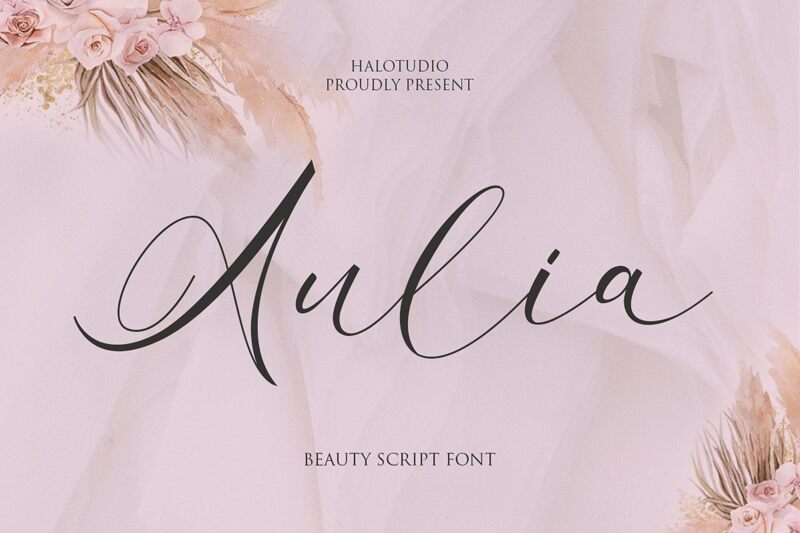
Aulia
Aulia, the latest creation by Hallotudio, is a stunning calligraphy font that exudes elegance and sophistication. The semi-light weight gives it a delicate touch while maintaining its legibility. With its beautiful curves and flowing strokes, Aulia is perfect for wedding invitations, greeting cards, and other formal events. However, its versatility makes it suitable for various projects like branding materials, packaging designs, and social media graphics. Aulia's timeless beauty will add an extra touch of refinement to any project you use it in.